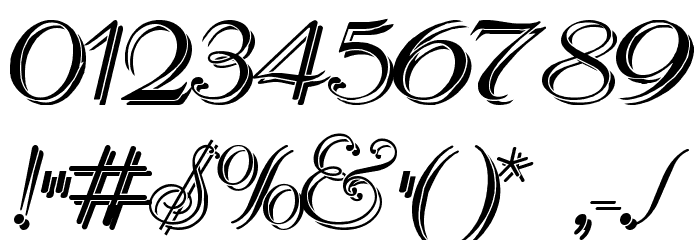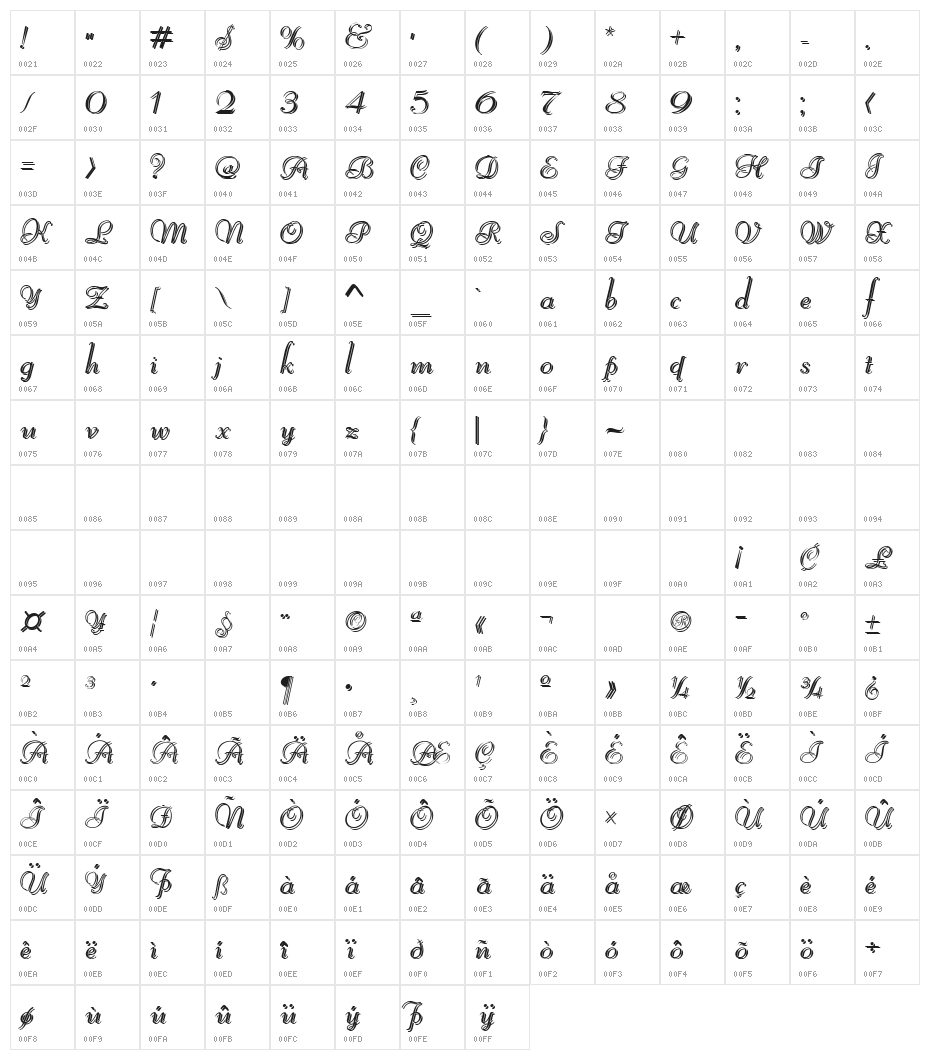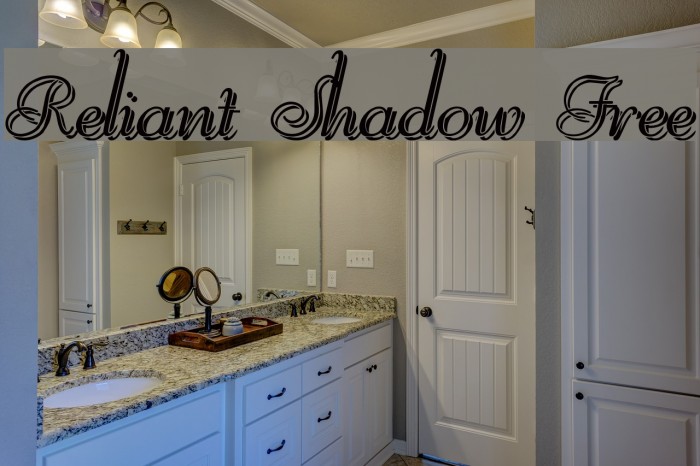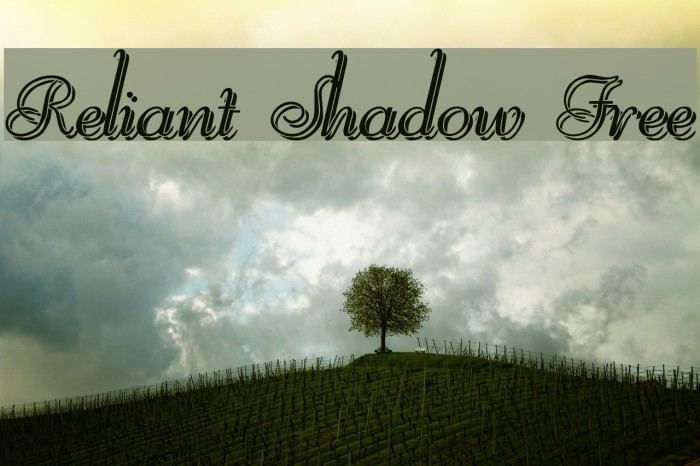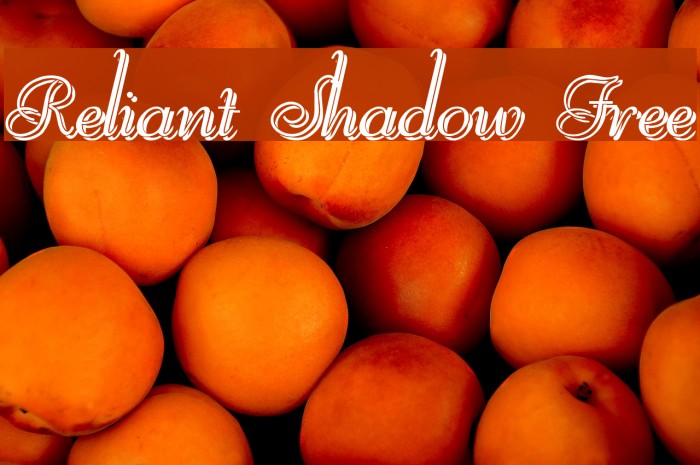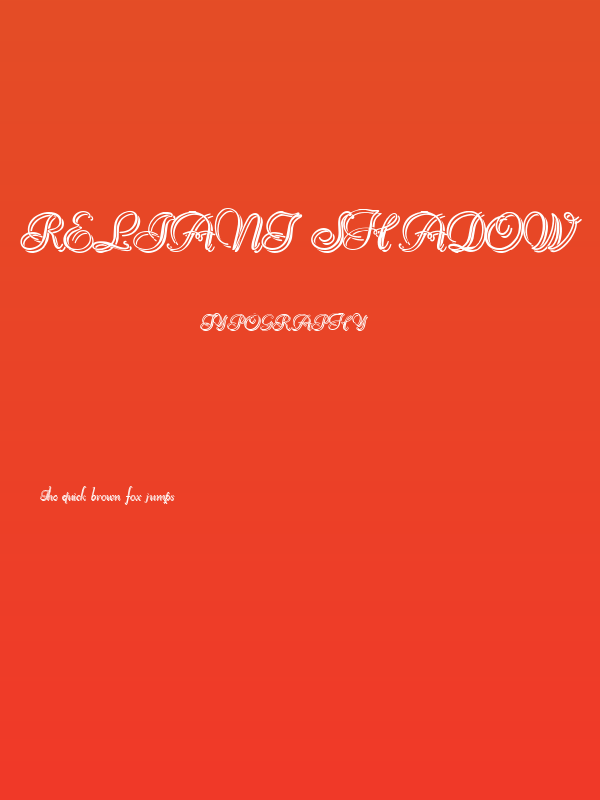
Reliant Shadow Free Font
Reliant Shadow Free Description
This font features an elegant and decorative script style, characterized by its flowing curves and intricate detailing. Each letter is adorned with shadow-like embellishments that add depth and a sense of movement. The uppercase letters are particularly ornate, with sweeping lines and loops that convey a sense of sophistication. The lowercase letters maintain a consistent style, offering a harmonious blend with the uppercase. The numerals are equally stylized, ensuring a cohesive look across all characters. Special characters are designed to match the overall aesthetic, making this font suitable for creative and artistic projects.